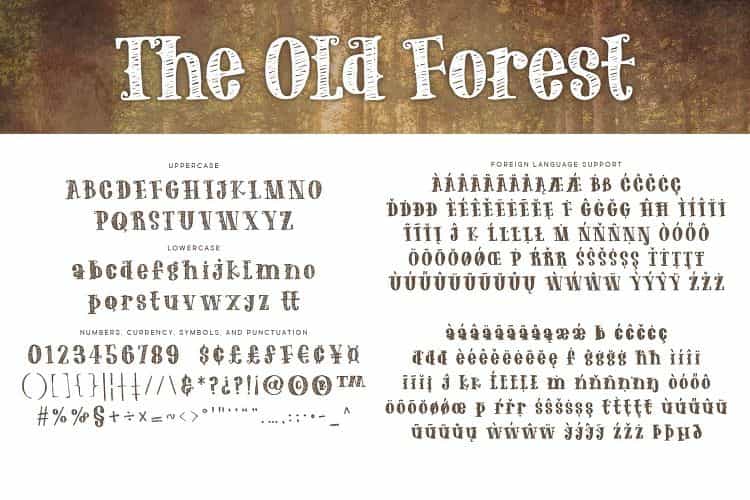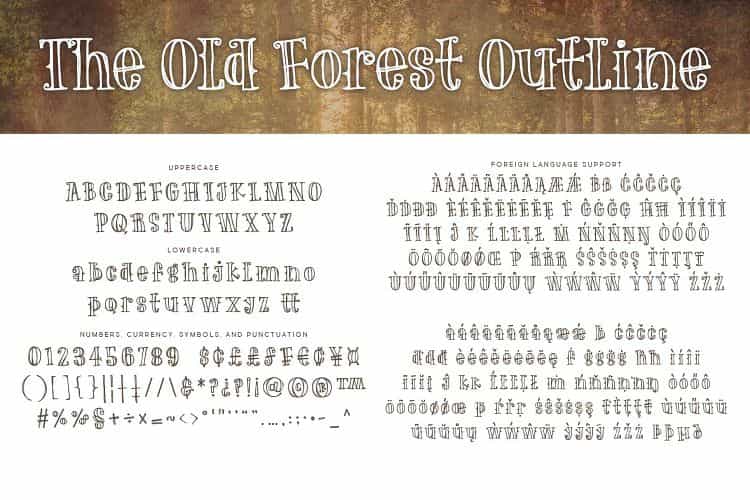
Old Forest a new handwritten font that was created by Brittney Murphy Designs released in 2021. The family of fonts includes two styles: The first version of the paper is going to be the standard version and the second version is going to be with an outline. The Old Forest was hand drawn, and the small flaws in the design give your project a homemade feel.